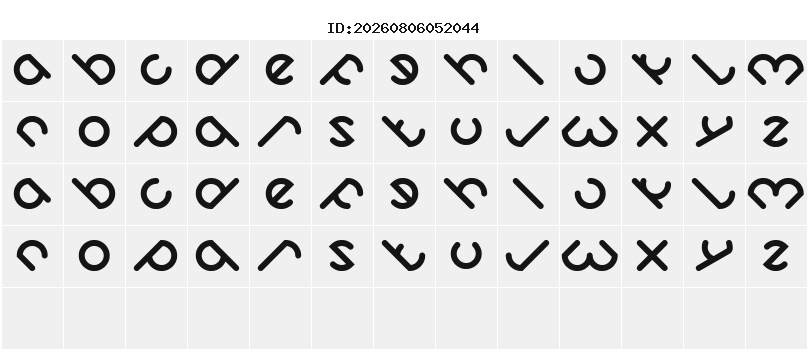
OwaikeO Preview
• Font Name: OwaikeO
• Full Font Name: OwaikeO
• Version: Version 1.00 August 7, 2011, initial release
About OwaikeO.ttf
OwaikeO.ttf is a modern, elegant sans-serif font designed for ultimate readability and visual harmony. Perfect for branding, headlines, web design, and print materials.